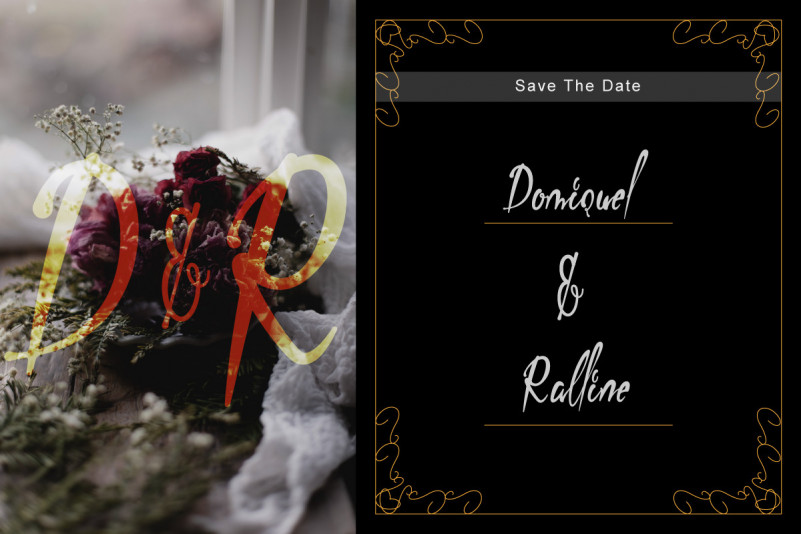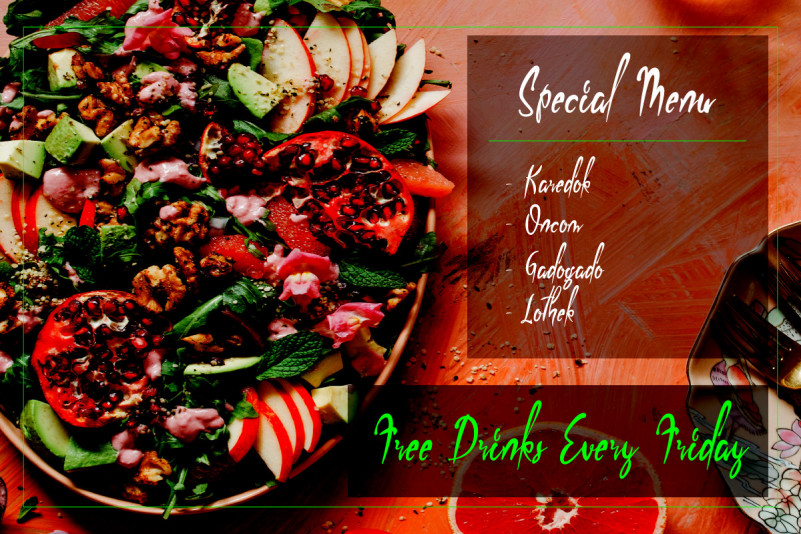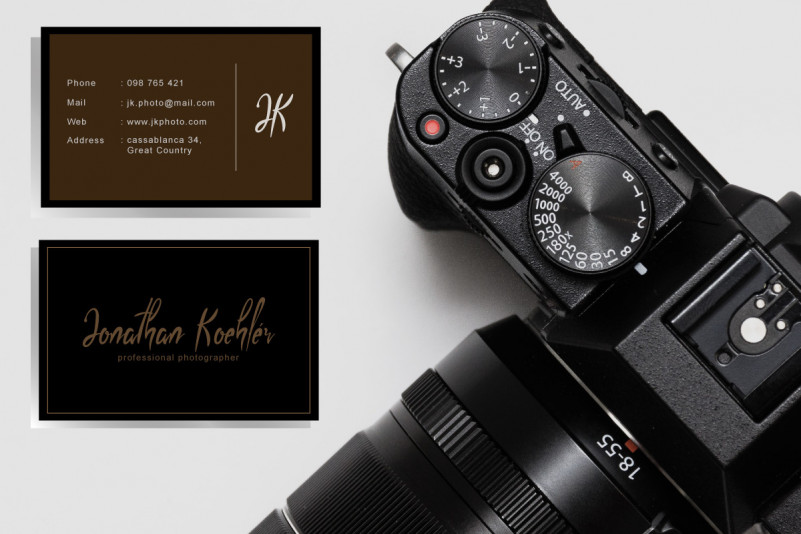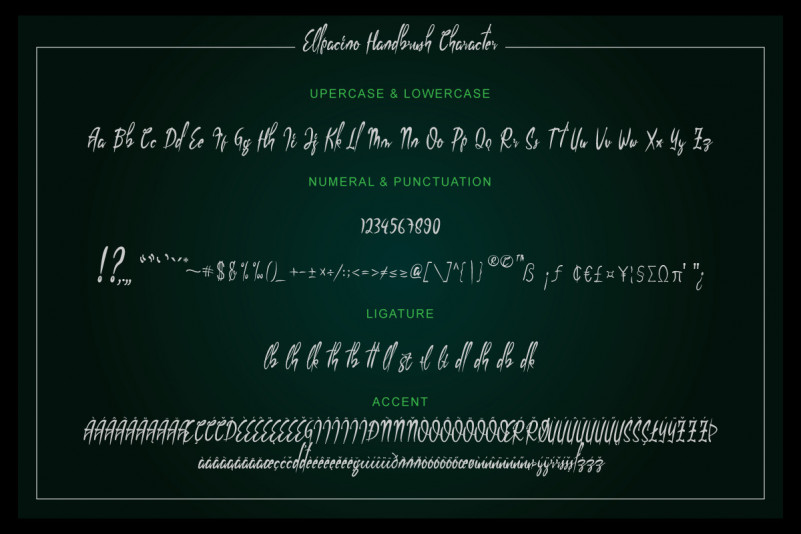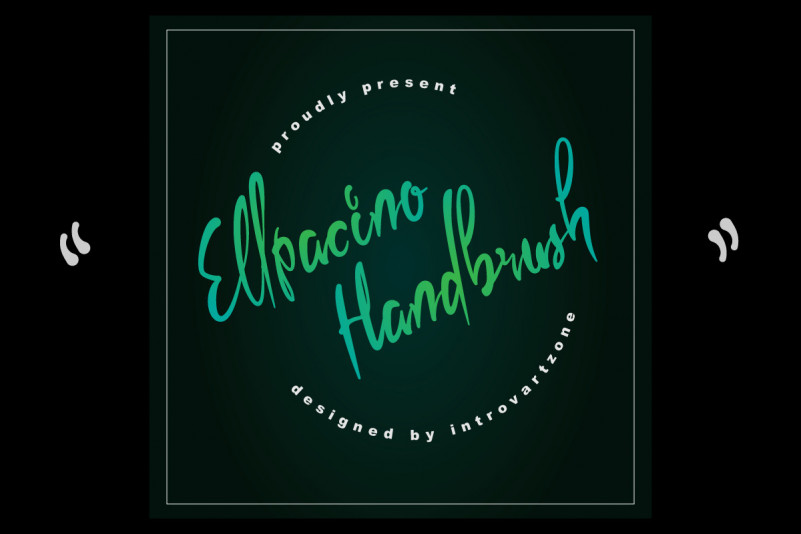
Ellpacino Handbrush Font
Introducing our newest product : Ellpacino Handbrush Font! bold, script, with some ligature that make it easy, and comes with a variety of accents to suit your needs. Ellpacino Handbrush designed for various purposes such as the design of packaging products, printed products, invitations, business cards, even for branding.
•  Upercase & lowercase
•  Numeral & punctuation
• Ligature (see on image preview)
• Accent (see on image preview)